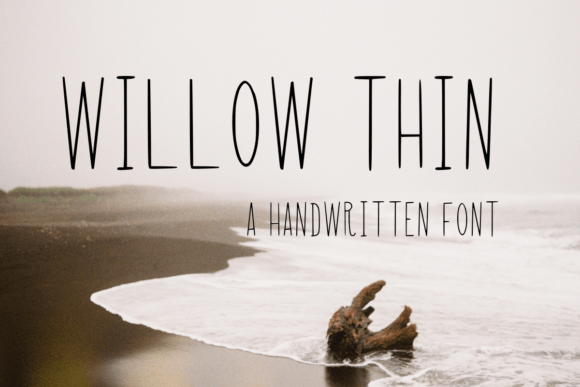
Introducing Willow Thin Font: A Simple yet Elegant Scandinavian-Inspired Typeface
Are you looking for a font that can add a touch of Scandinavian simplicity and elegance to your designs? Look no further than Willow Thin Font. This all-caps handwritten font is perfect for a variety of design projects, from crafting and digital designing to presentations and greeting card making.
What is Willow Thin Font?
Willow Thin Font is a simple, Scandinavian-inspired, all-caps handwritten font that features exaggerated letters. Its unique design makes it stand out from other fonts, and its versatility ensures that it can be used in a wide range of design projects.
Whether you’re a designer, a crafty person, or someone who loves to create digital content, Willow Thin Font is a perfect addition to your font collection. Its clean and elegant design makes it easy to read, and its Scandinavian inspiration gives it a unique and distinctive look.
Key Features of Willow Thin Font
- All-caps design: Willow Thin Font is an all-caps font, which means it’s perfect for headlines, titles, and other design elements where you want to make a statement.
- Handwritten style: The font has a handwritten style that gives it a personal and unique touch.
- Exaggerated letters: The font features exaggerated letters that make it stand out from other fonts.
- Scandinavian inspiration: The font is inspired by Scandinavian design, which means it’s simple, elegant, and clean.
- Clean and elegant design: The font has a clean and elegant design that makes it easy to read and perfect for a variety of design projects.
Uses of Willow Thin Font
Benefits of Using Willow Thin Font
- Unique and distinctive look: The font has a unique and distinctive look that will make your designs stand out from others.
- Elegant and clean design: The font has an elegant and clean design that makes it easy to read and perfect for a variety of design projects.
Tips for Using Willow Thin Font
Willow Thin Font is a simple yet elegant Scandinavian-inspired font that is perfect for a variety of design projects. Its unique and distinctive look, elegant and clean design, and versatility make it a great addition to any font collection.